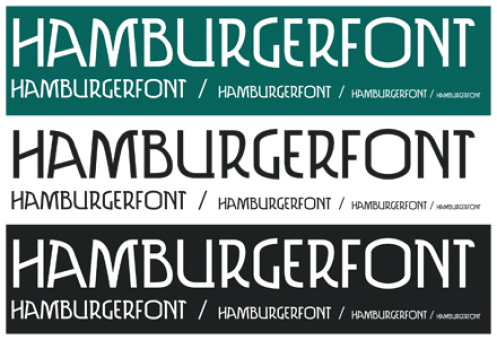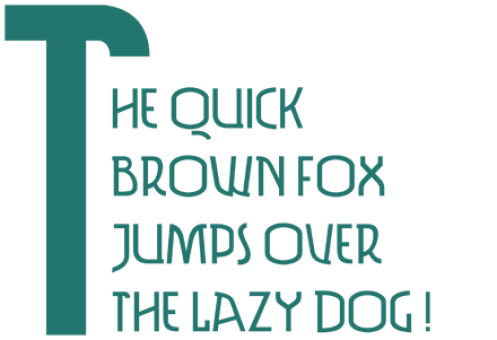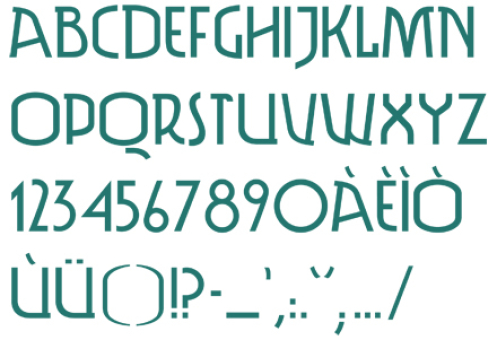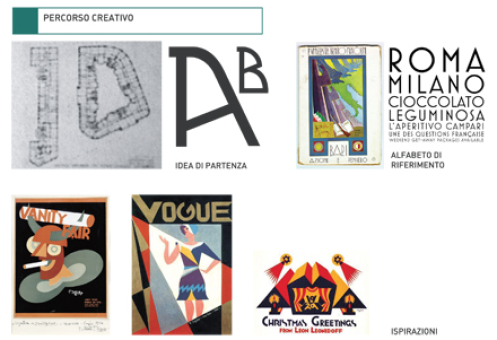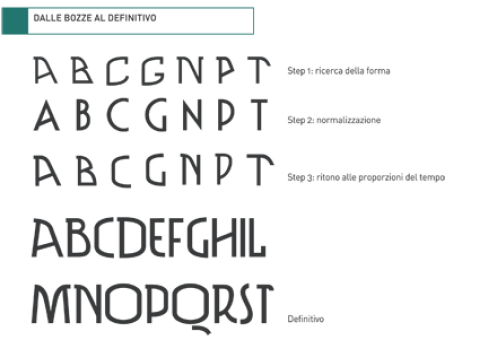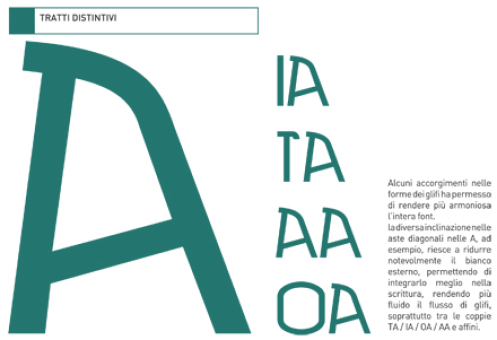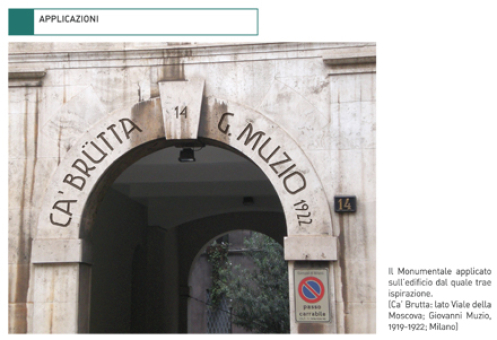
Monumentale
Inpired by the architecture of Cà Brùtta, a building by Giovanni Muzio placed in Milan
Designer: PIERFRANCESCO PEPO ANNICCHIARICO
Publisher: PIERFRANCESCO PEPO ANNICCHIARICO